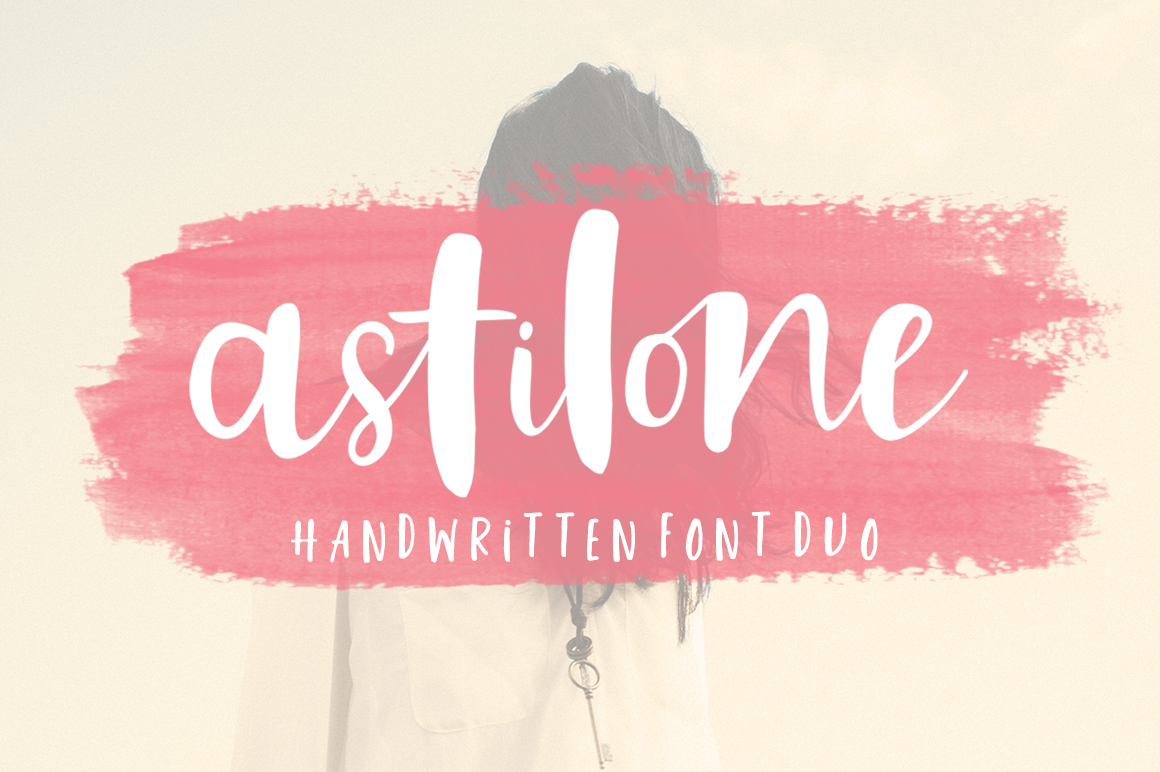
The Astilone Font Duo: A Hand-Brushed Typography Dream Come True
I still remember the design project that led me to discover the Astilone Font Duo. I was working on a branding project for a boutique craft store, and I needed a font that would capture the essence of handmade, artisanal products. I had a very specific vision in mind – a bold, yet imperfect font that would evoke the feeling of being hand-painted. After scouring the internet for hours, I stumbled upon the Astilone Font Duo, and it was love at first sight! 💕
The Astilone Font Duo is a hand-brushed font, created with a brush and ink, which gives it a unique, organic feel. It features a bold and irregular baseline, which adds to its charm. What I love about this font duo is that both fonts work in perfect harmony, creating amazing typography creations that are sure to elevate any design project.
• ✨ Unique, hand-brushed texture that adds a personal touch to any design
• ✅ Bold and irregular baseline that creates visual interest
• 💯 Perfect for creating eye-catching headings, titles, and quotes
• 🎨 Works well with a variety of design styles, from rustic to modern
While the Astilone Font Duo is an amazing font, there are a few things to keep in mind. 🤔 For example, the font can be a bit challenging to read in large blocks of text, so it’s best used for headings and titles. Additionally, some of the characters may not be suitable for small font sizes, so it’s best to use it at larger sizes. ⚠️
The Astilone Font Duo was inspired by the art of hand-brushed typography. The designer, who wishes to remain anonymous, was inspired by the works of traditional sign painters and lettering artists. The font was created using a combination of traditional and digital techniques, resulting in a unique and authentic feel.
What is the Astilone Font Duo? The Astilone Font Duo is a hand-brushed font, created with a brush and ink, featuring a bold and irregular baseline.
What is the best way to use the Astilone Font Duo? The Astilone Font Duo is best used for headings, titles, and quotes, where its unique texture and bold style can shine.
Is the Astilone Font Duo suitable for body text? No, the Astilone Font Duo is best used for headings and titles, as it can be challenging to read in large blocks of text.